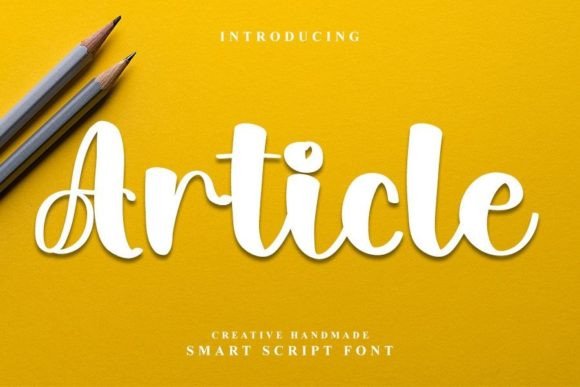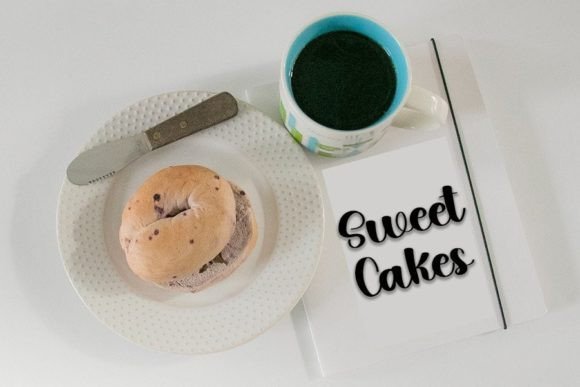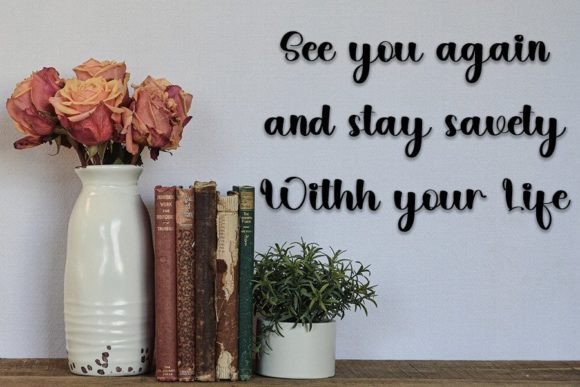
About Article Font
“Article” is not just a font; it’s a stylish handwritten typeface that emanates a contemporary atmosphere and impeccable form. Drawing inspiration from timeless classic calligraphy, this font is balanced and varied, meticulously designed to enhance the beauty of your projects with a touch of sophistication.
The contemporary atmosphere of “Article” makes it a stylish choice for a variety of design projects. Whether you’re working on branding, web design, editorial content, prints, or any creative endeavor, this font injects a fresh and modern aesthetic that aligns seamlessly with the visual language of contemporary design.
Inspired by classic calligraphy, “Article” captures the essence of traditional craftsmanship while infusing it with a modern twist. The result is a typeface that offers a harmonious blend of timeless elegance and contemporary flair, making it suitable for a range of applications.
The balanced and varied design of “Article” ensures visual interest and versatility, making it suitable for different elements within your projects. Whether you’re crafting headlines, body text, or other typographic elements, this font maintains its appeal and adds a touch of sophistication to your designs.
In essence, “Article” is a versatile and stylish handwritten font that marries classic calligraphy with a contemporary edge. Incorporate it into your projects, and experience how it enhances the beauty and visual appeal, adding a layer of style and elegance to your creative endeavors.